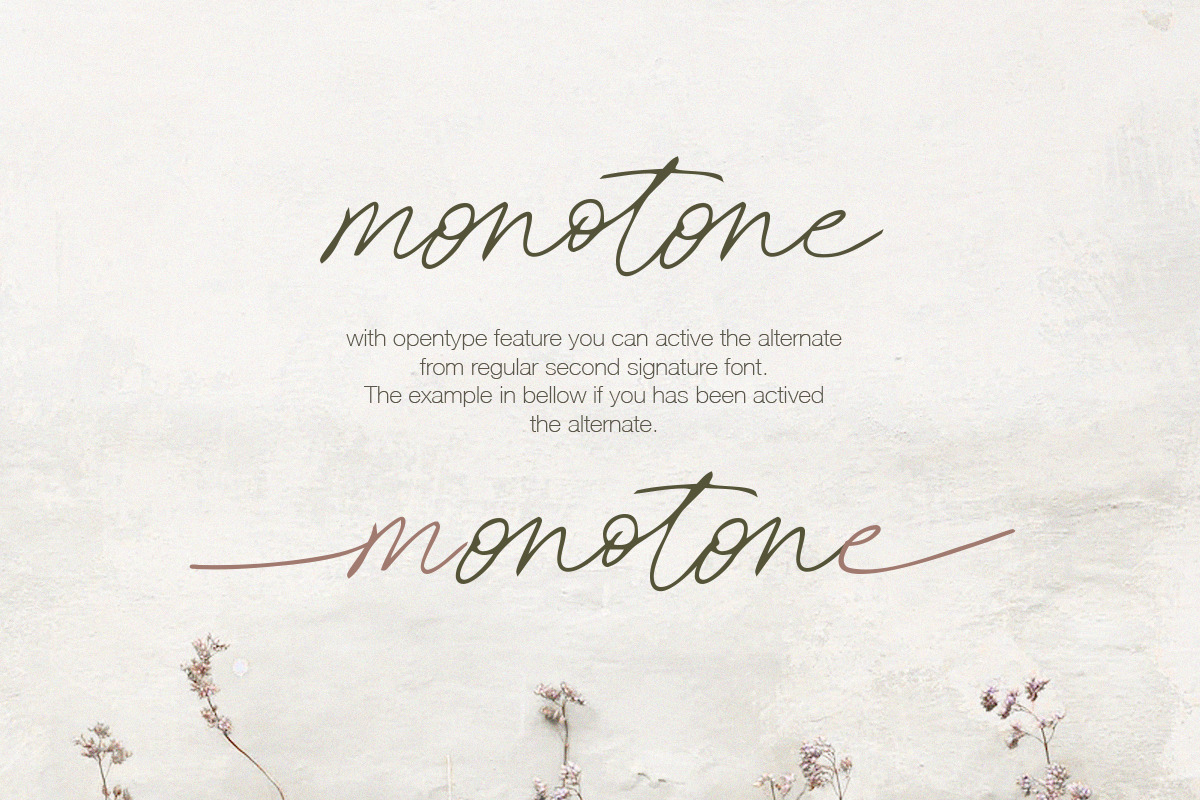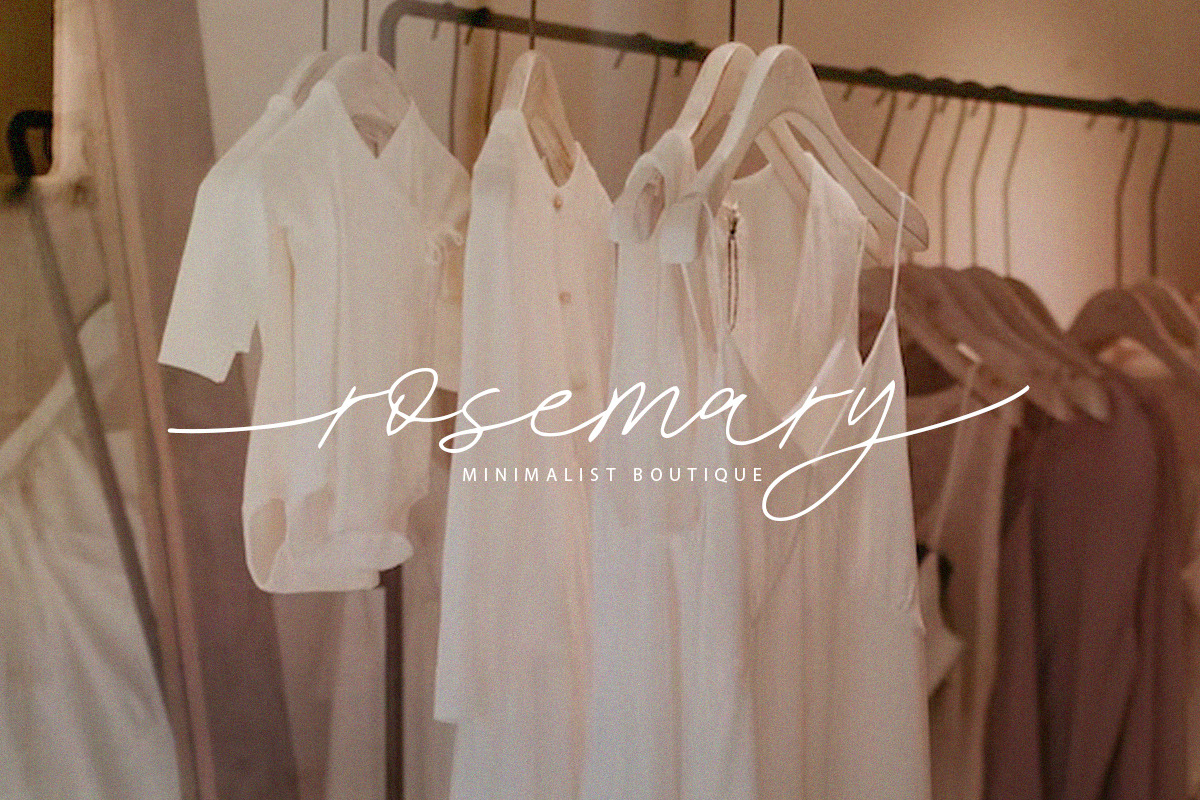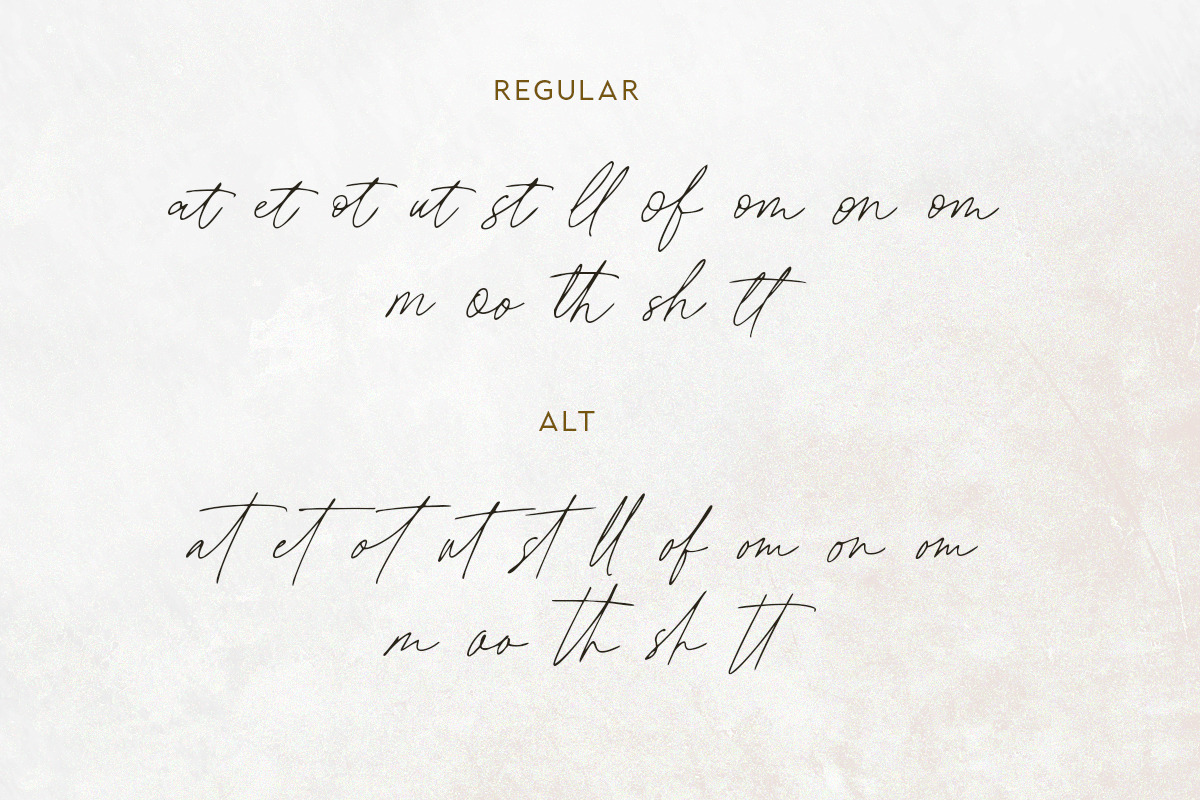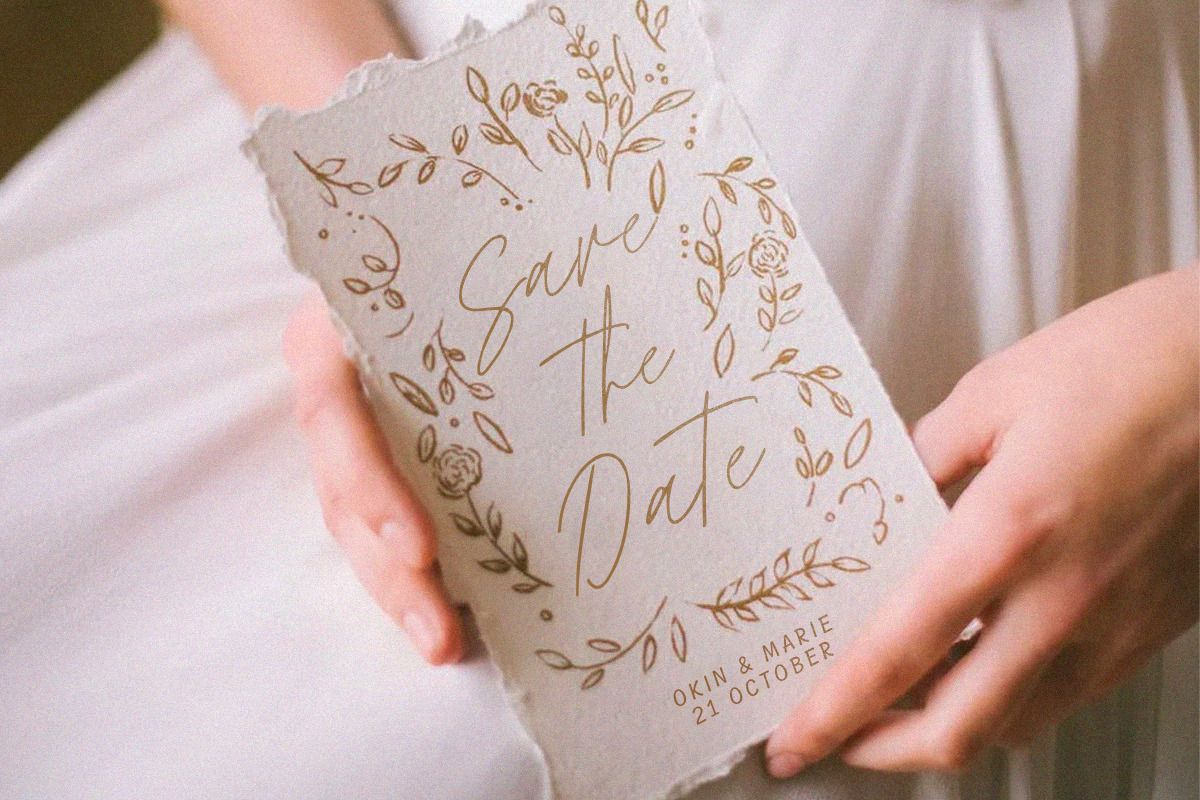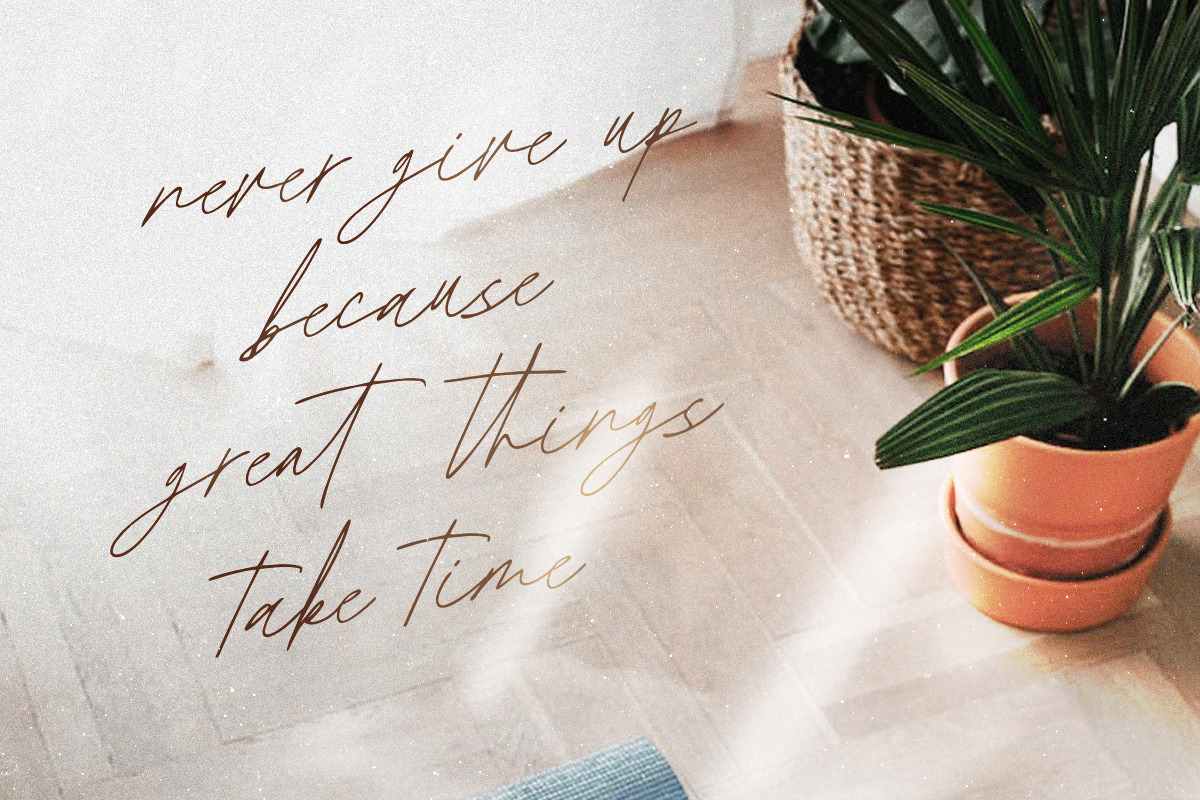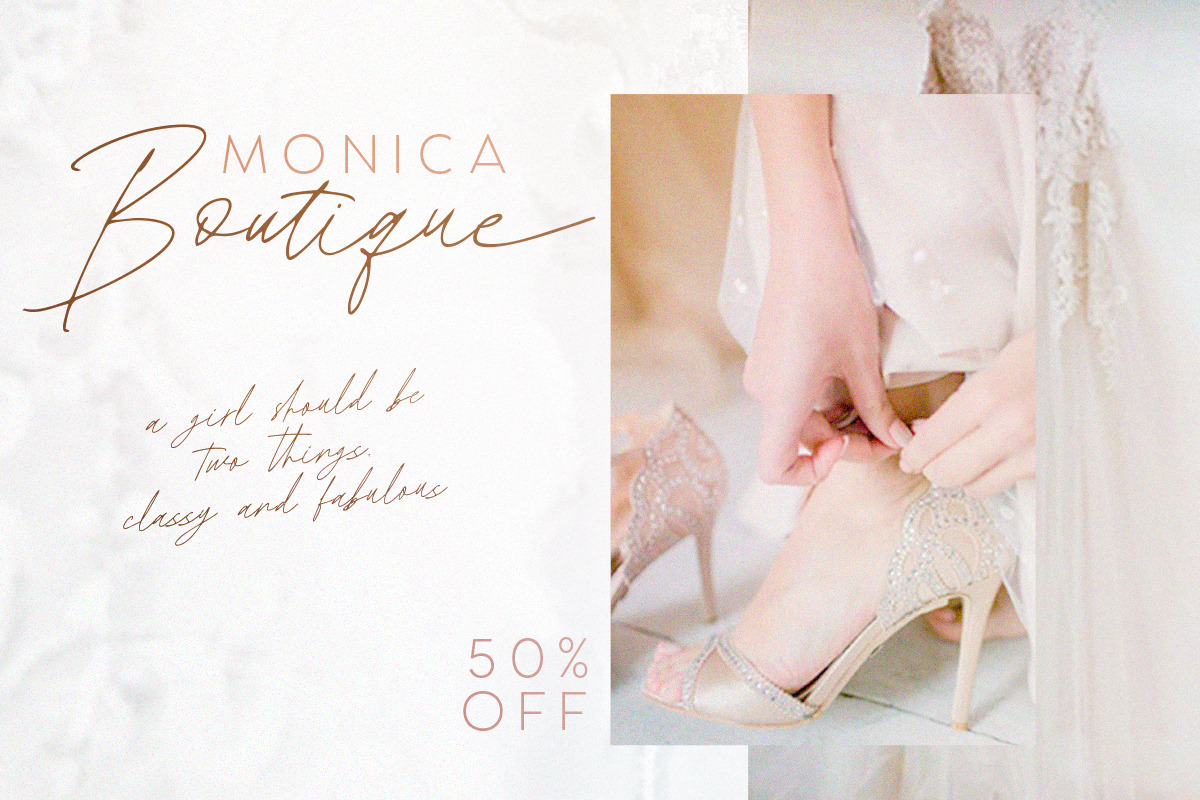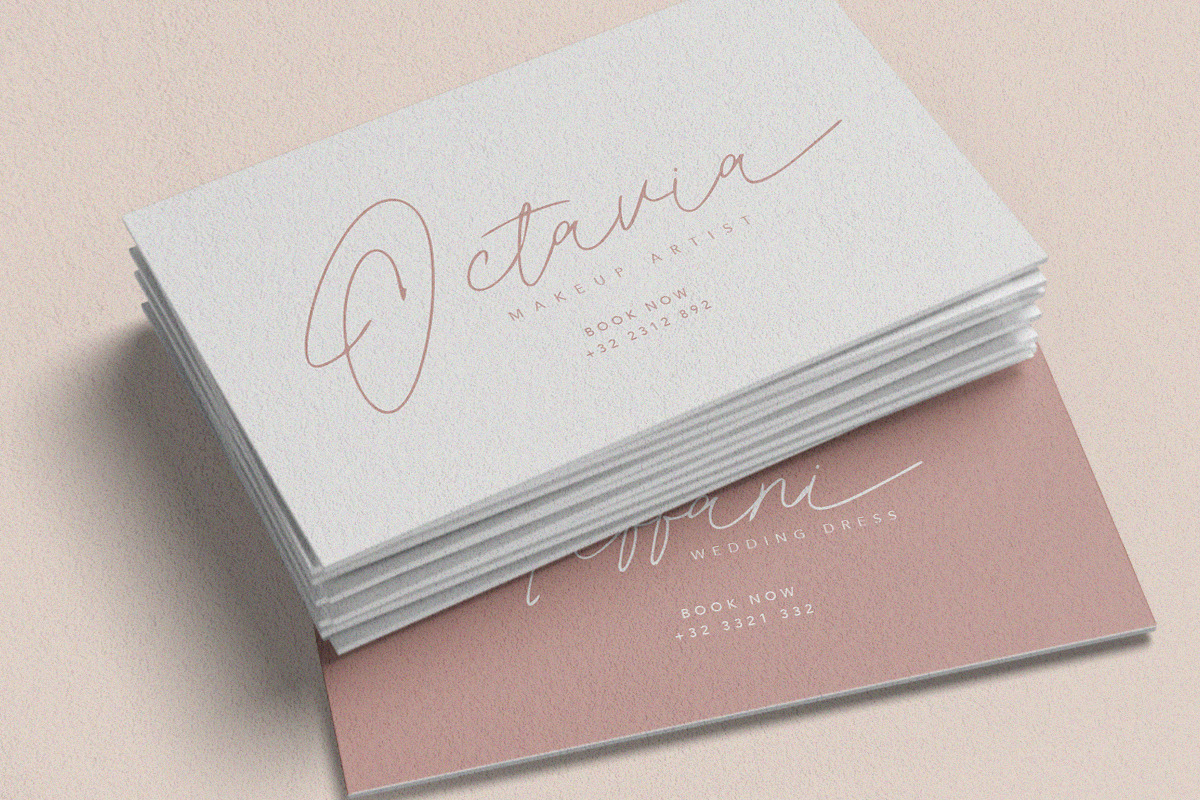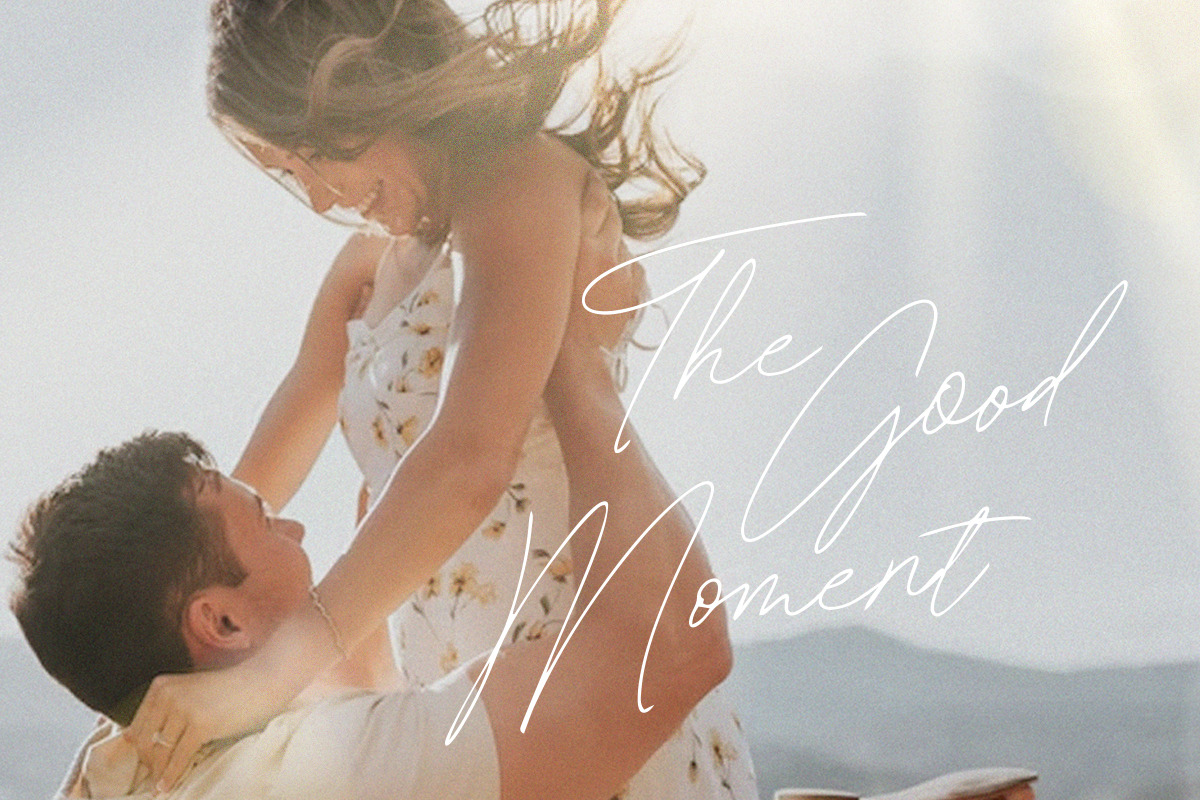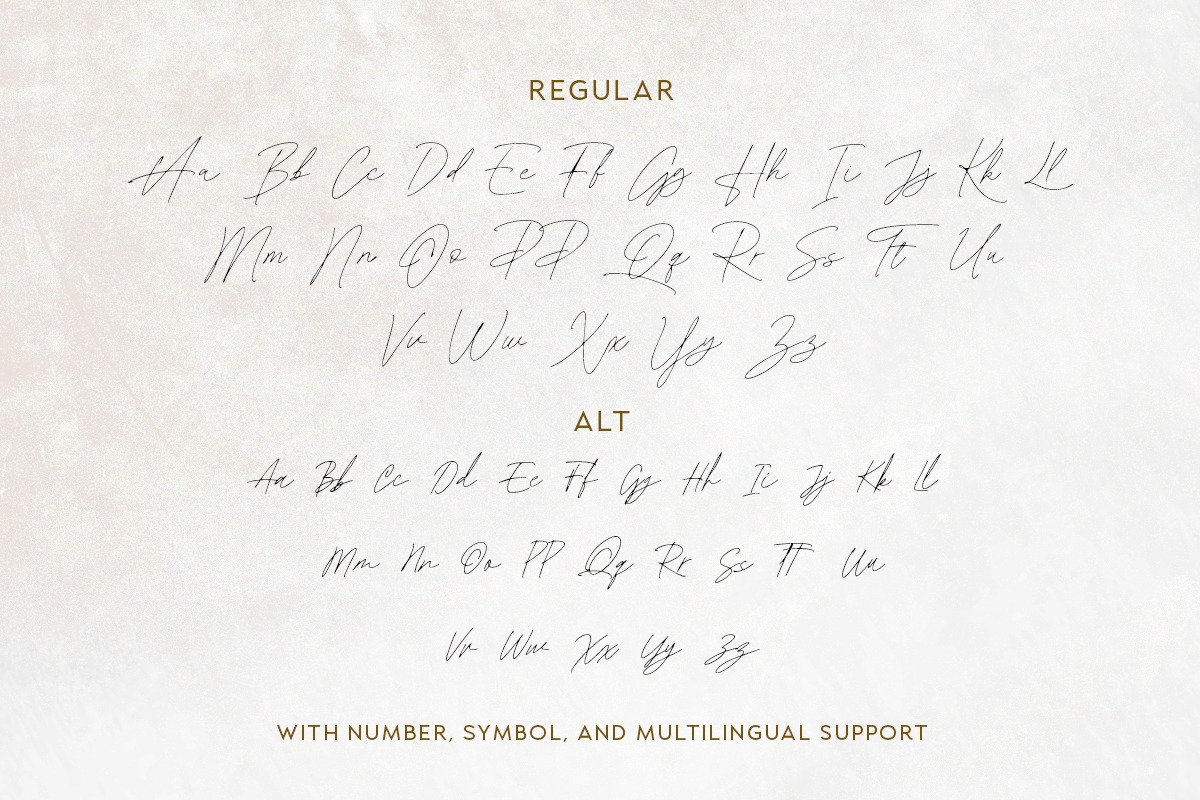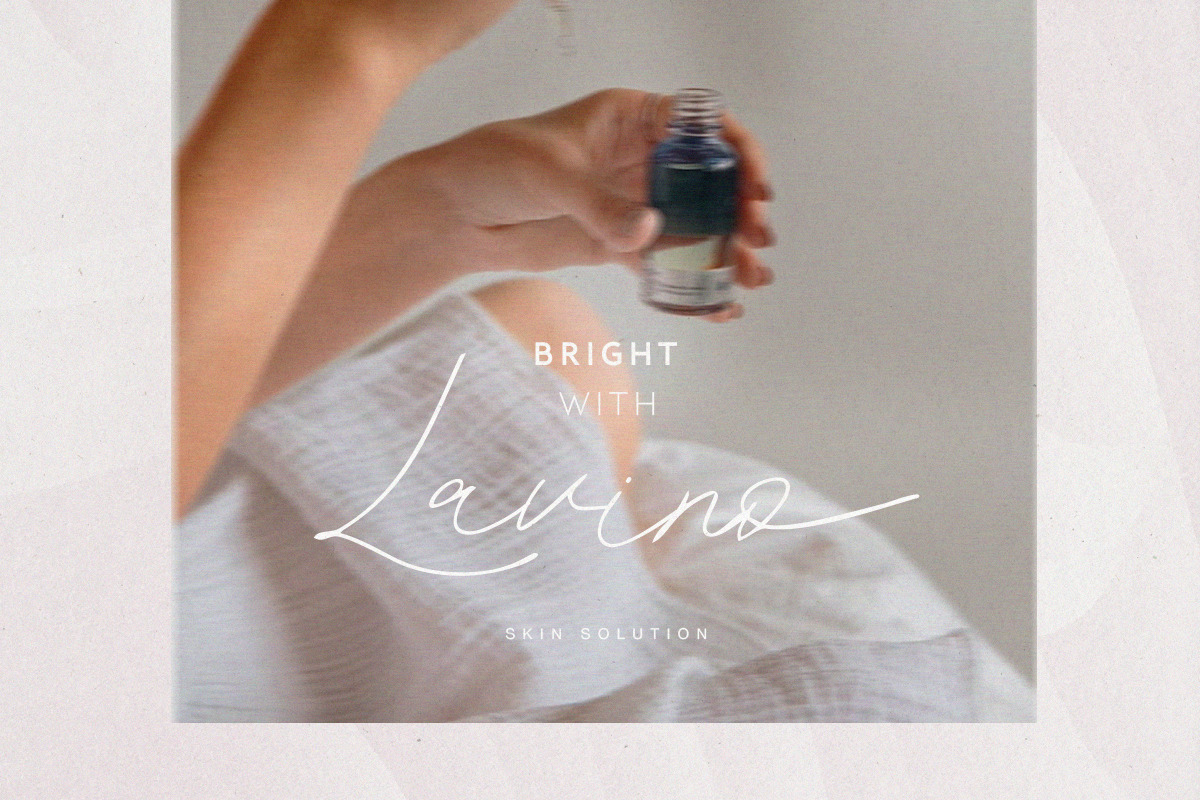
Second Signature - Duo Script
Second Signature is a signature script font family that contains Regular and Alt. With different looks, you can use both of them in the same project or in their own. You can use this font duo for many purposes, such as wedding invitations, signature logotype, branding, or even complementary for your serif and sans. With ligatures and alternates, this fonts will make your designs more naturally handwritten. This fonts also support multi language!